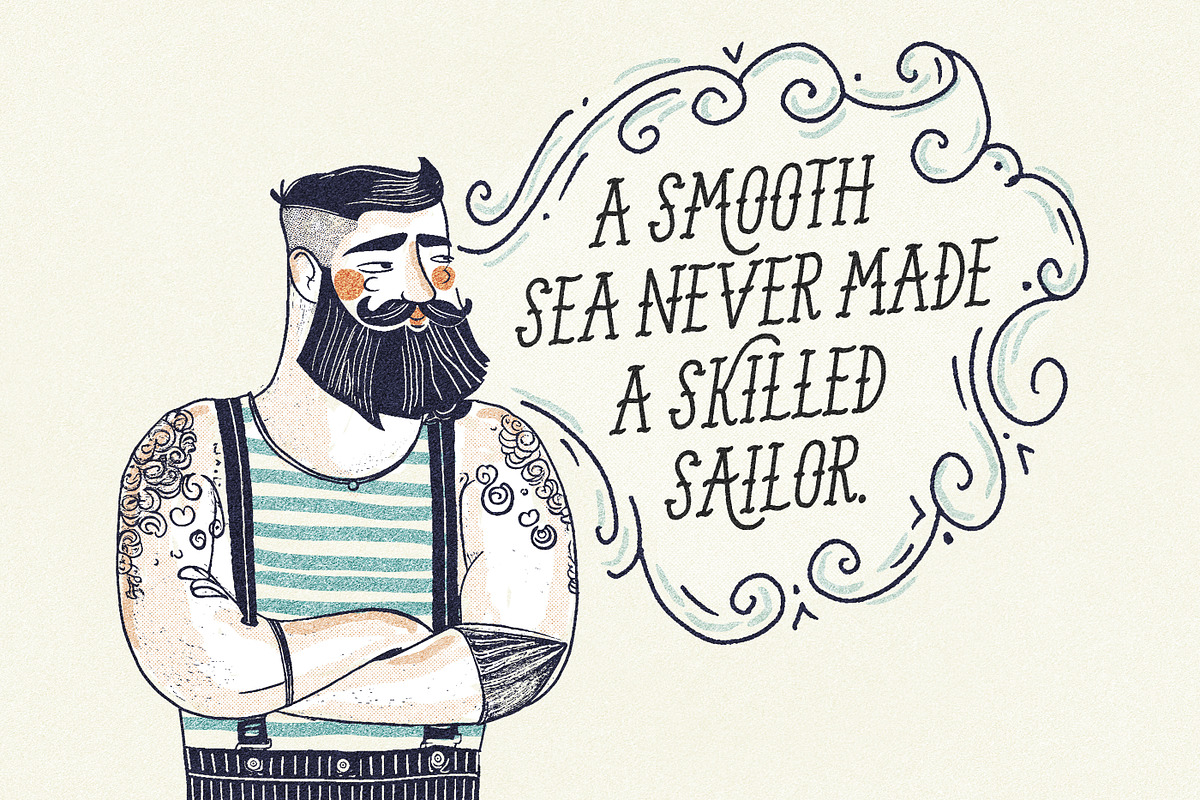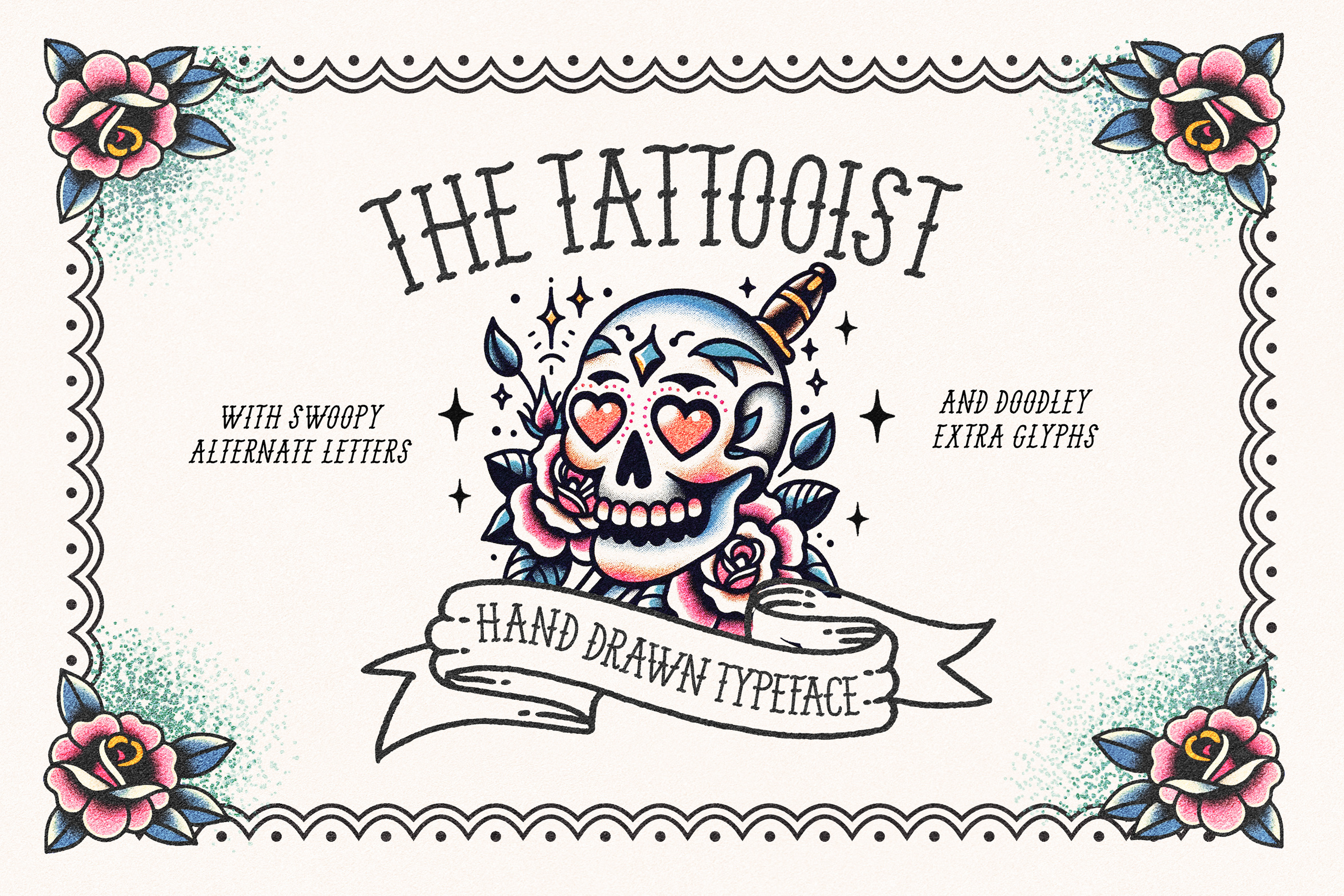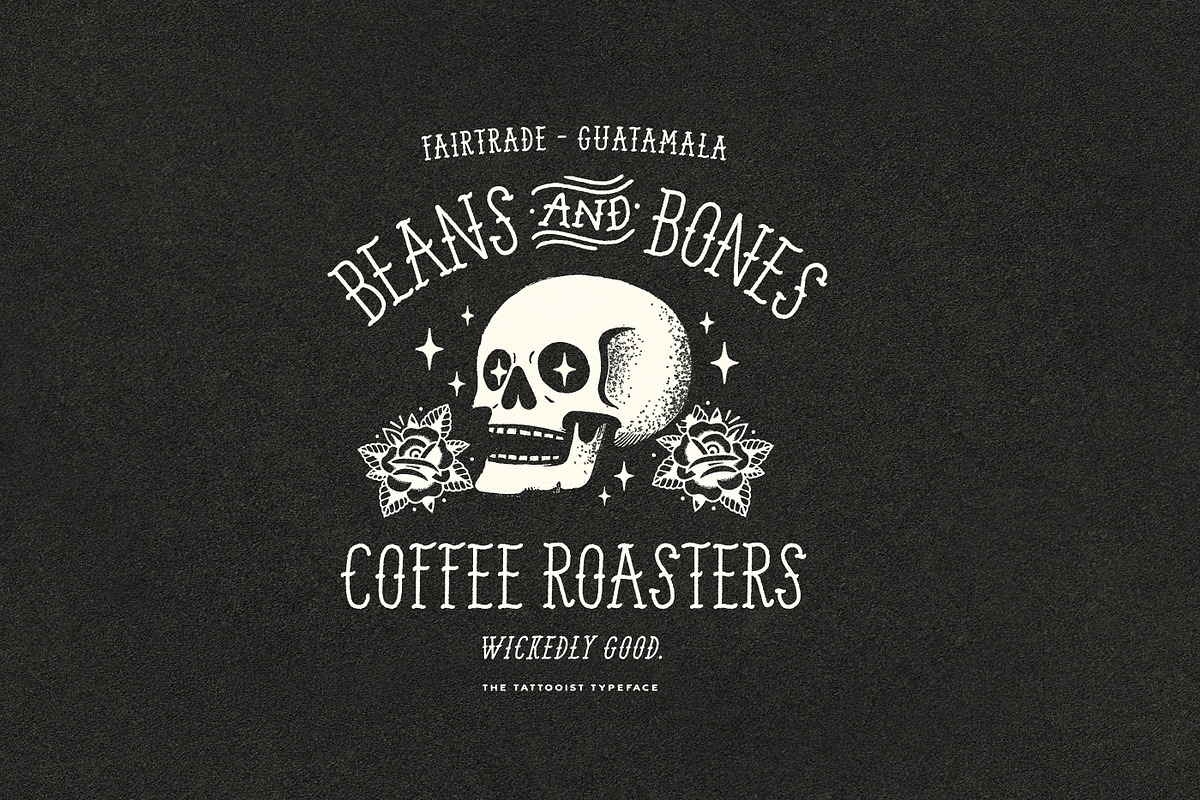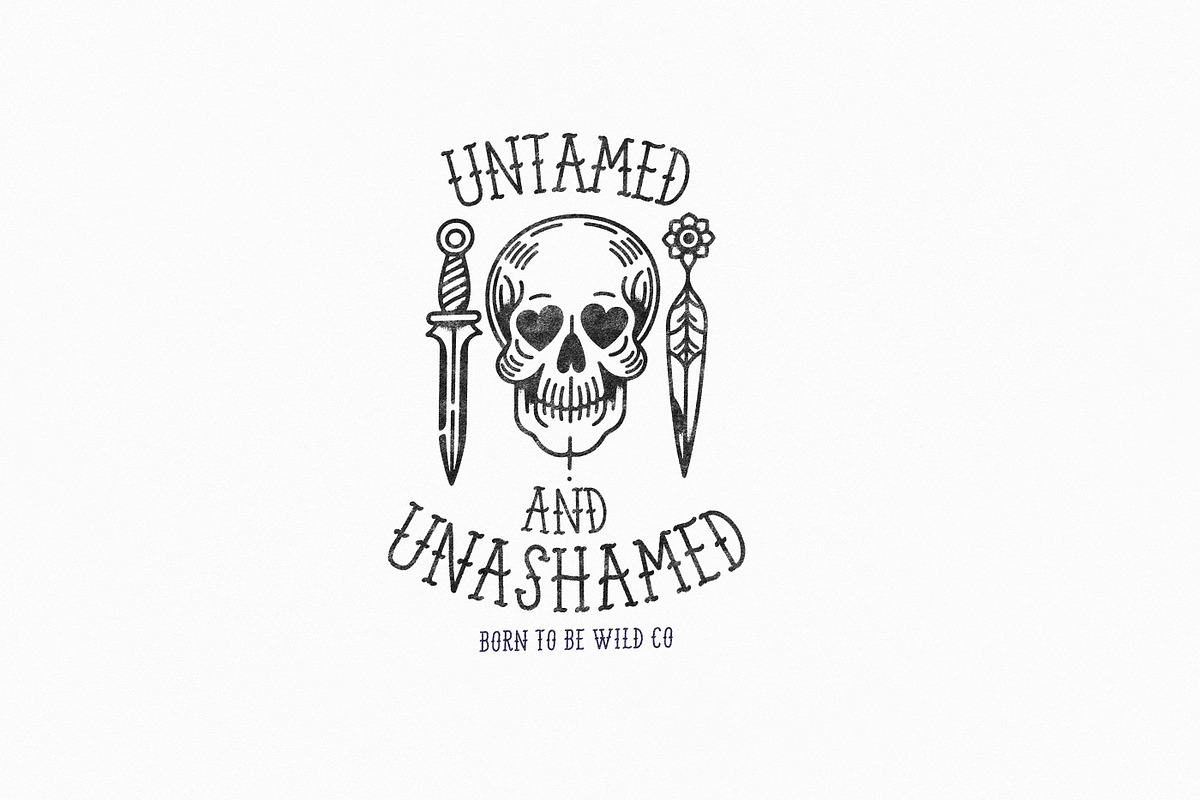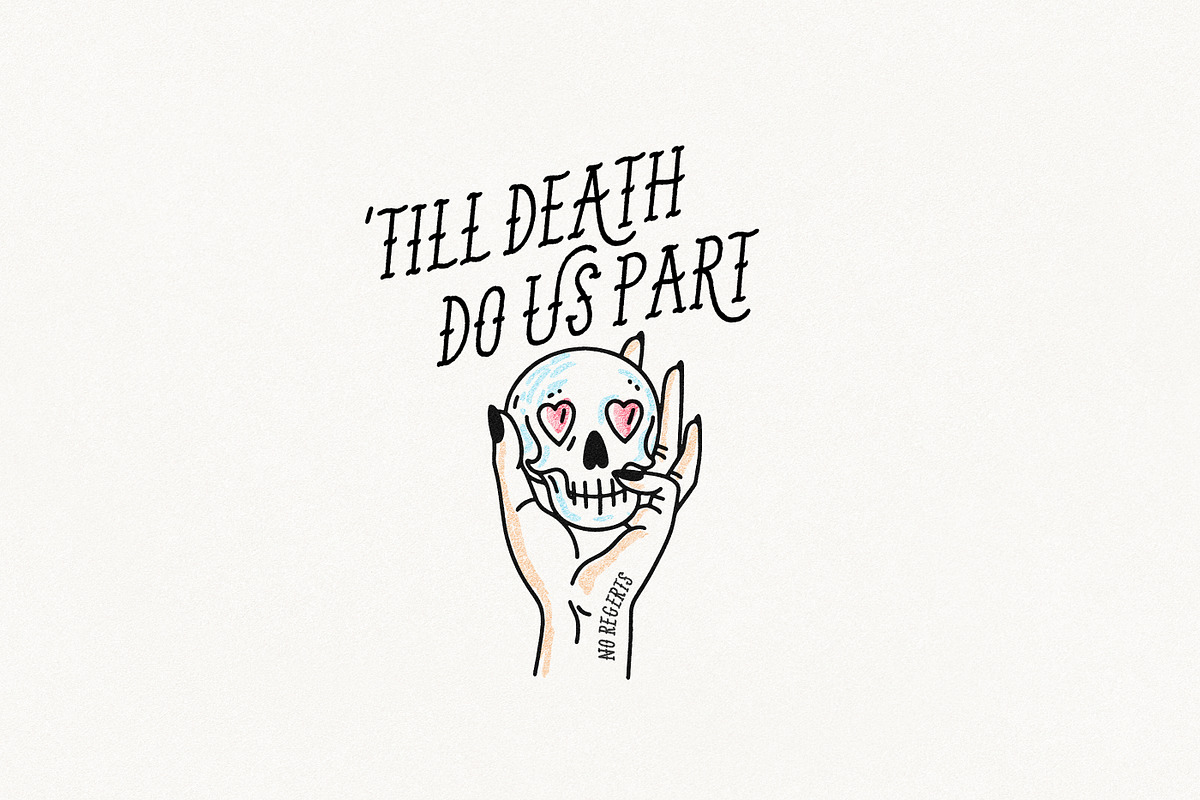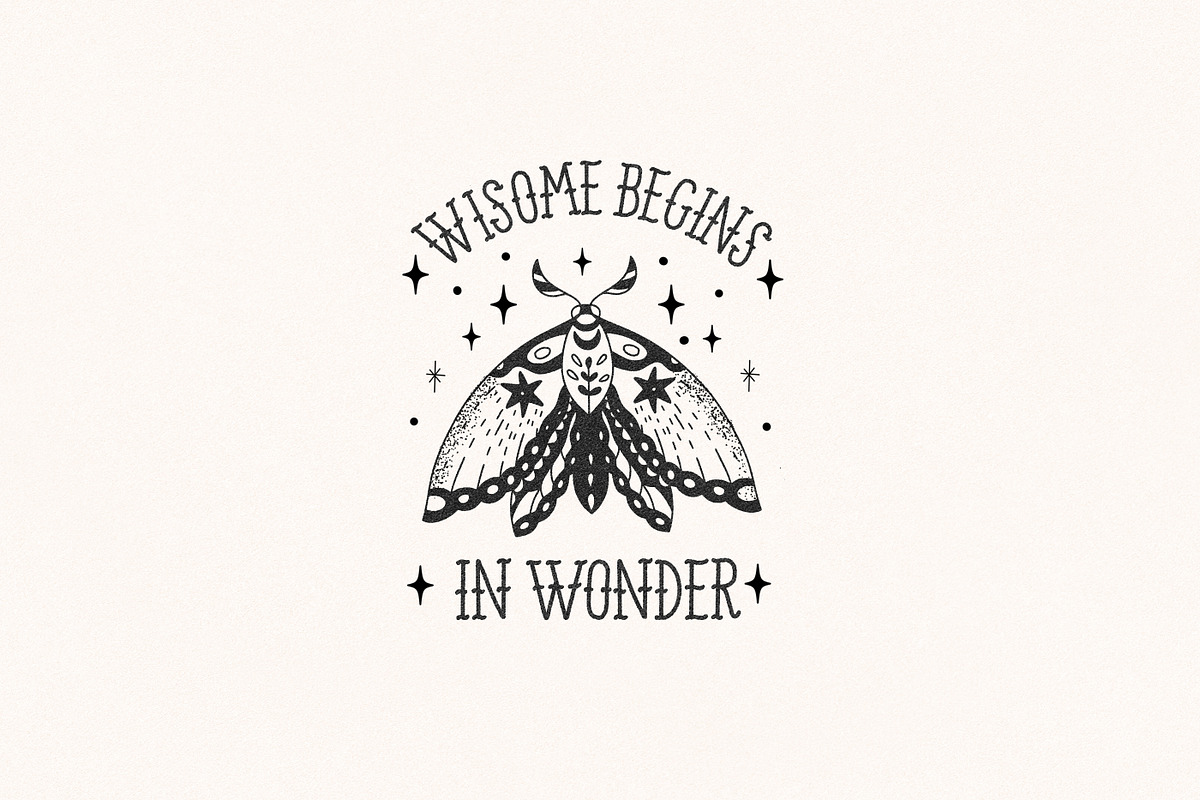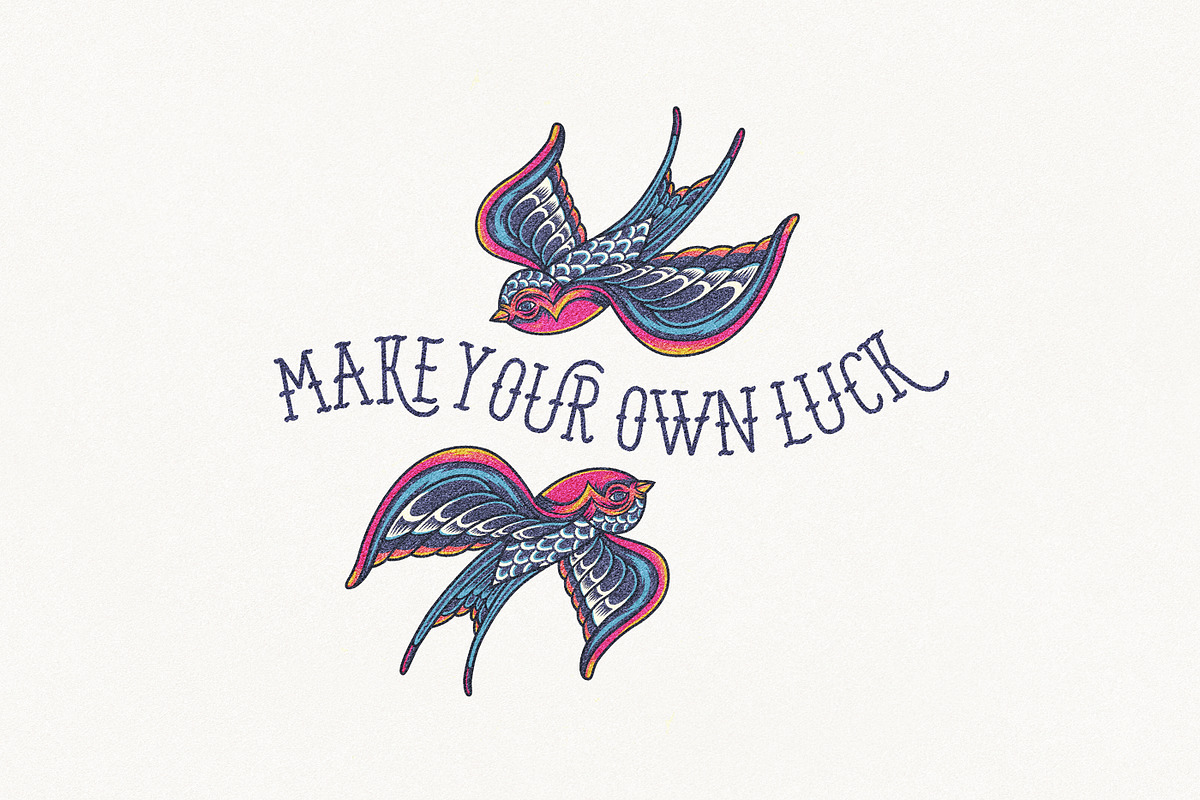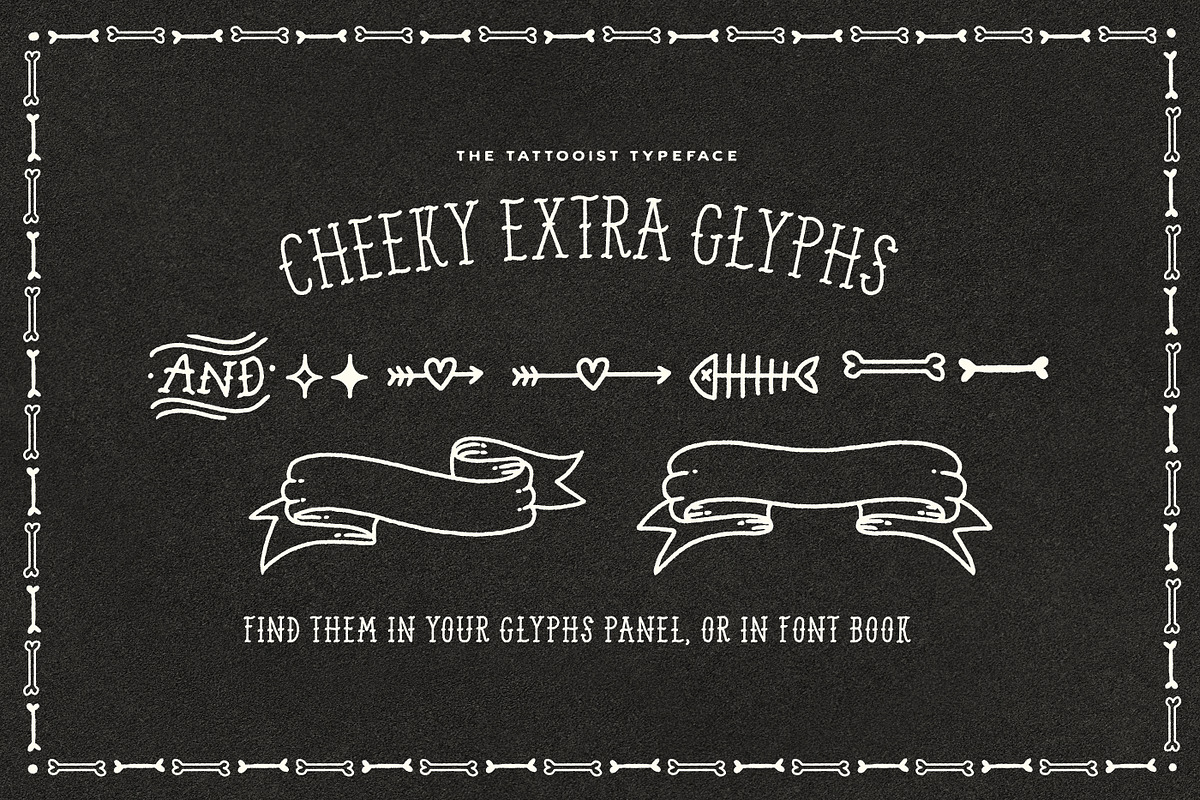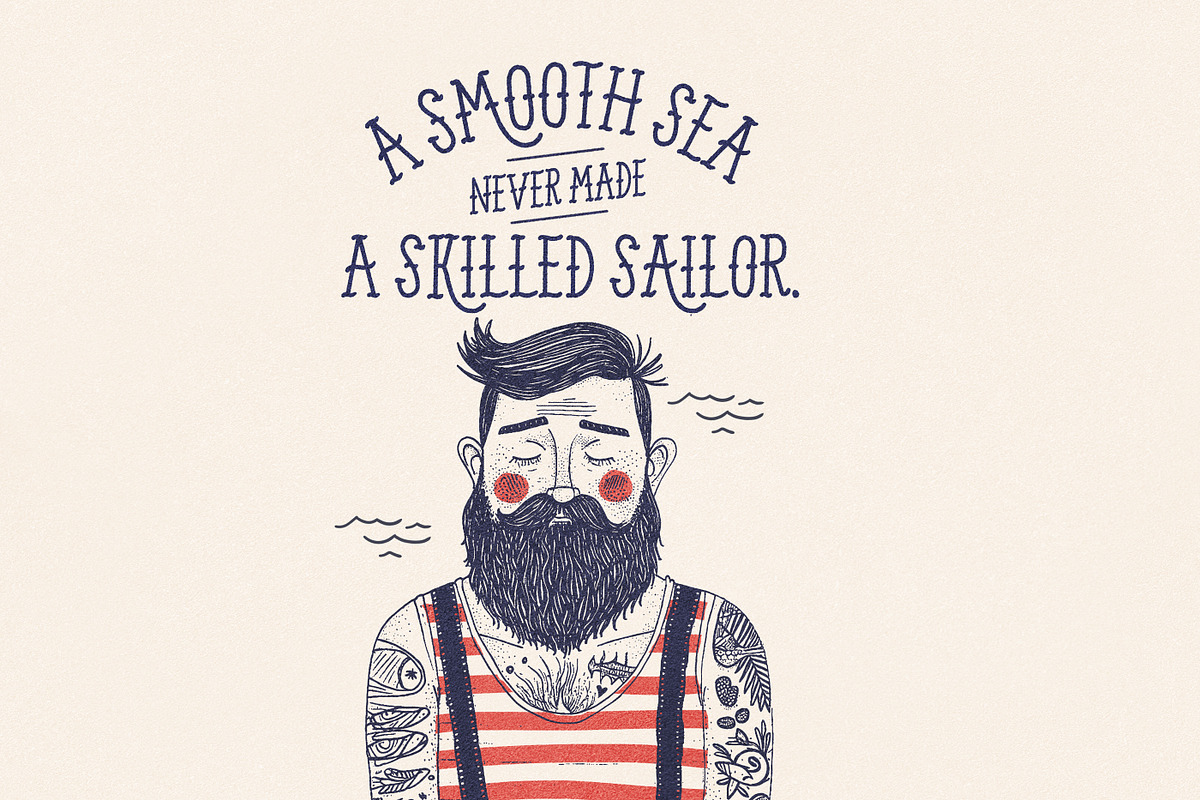
The Tattooist Typeface
Say hello to 'The Tattooist'! A quirky little hand drawn Typeface, perfect for traditional quirky tattoo style illustrations and artwork.
There are 9 styles in total : Regular Weight, Medium Weight, and Heavier Weight, and then an oblique, and max oblique version of each. It also includes the swoopy altenate letters in the uppercase keystrokes. There is also an alternate 'swoop' for the H and K in the Opentype Alternates.
You'll find a few little cheeky dingbats in the Opentypes Glyphs too! Open your Glyphs panel in your app ( Photoshop/Illustrator ) , or copy and paste from your Font Book on Mac:)